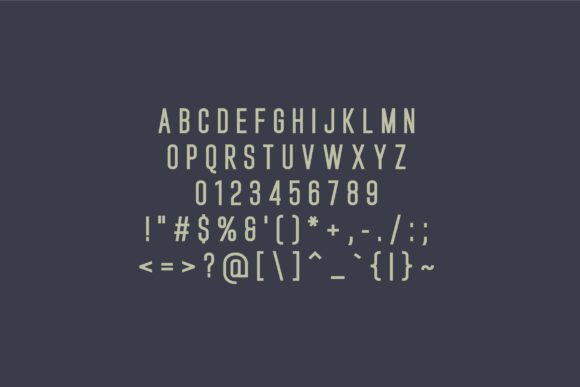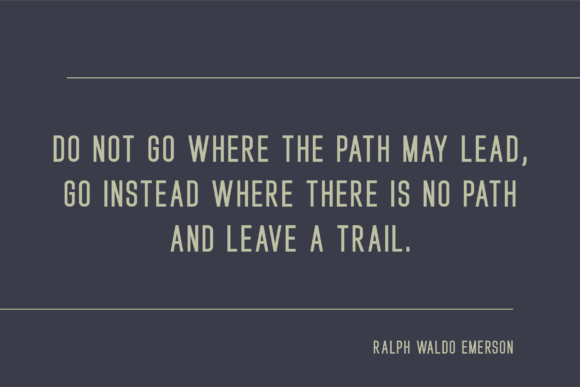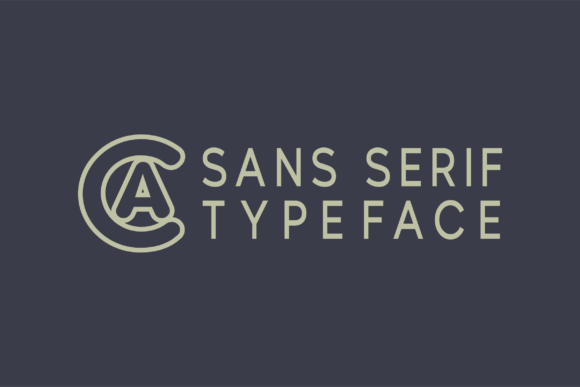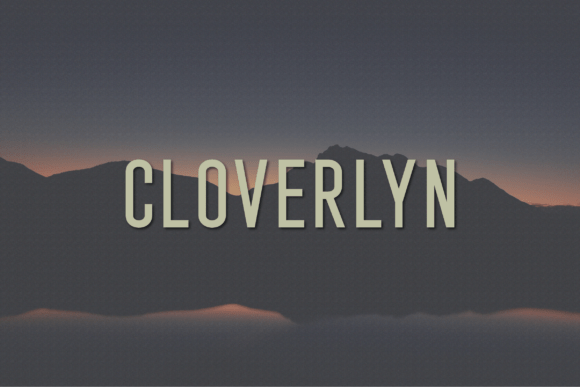
Introducing Cloverlyn Font: Elevate Your Designs with Modern Elegance
In the world of typography, a font can make all the difference in the aesthetic and effectiveness of a design. For designers, crafters, and anyone looking to add a touch of sophistication to their projects, Cloverlyn Font is an exceptional choice. This modern, classy sans serif typeface is not only visually appealing but also incredibly versatile, making it perfect for a wide range of applications.
What is Cloverlyn Font?
Cloverlyn Font is a sans serif typeface that boasts a clean and contemporary look. It features upper characters, numbers 0-9, and a comprehensive range of punctuation and symbols. This extensive character set ensures that you have everything you need to create cohesive and professional-looking designs. Whether you’re working on logos, weddings, invitations, quotes, advertisements, print materials, magazines, or more, Cloverlyn Font is up to the task.
Key Features of Cloverlyn Font
- Modern and Classy Design: Cloverlyn Font’s sleek and contemporary design makes it perfect for projects that require a touch of elegance and sophistication.
- Versatility: Its extensive character set and clear readability make it suitable for a wide range of applications, from digital designs to print materials.
- High Readability: The sans serif design ensures that your text remains clear and readable, even at smaller sizes.
Applications of Cloverlyn Font
The versatility of Cloverlyn Font makes it an excellent choice for various design projects. Here are some of the many ways you can use this fantastic font:
- Logos: Create memorable and elegant logos that stand out.
- Weddings and Invitations: Add a touch of class to your wedding invitations, save-the-date cards, and other ceremony-related materials.
- Quotes and Typography: Use Cloverlyn Font to create stunning typographic quotes that can be used on social media, blogs, or as standalone artworks.
- Advertisements: Enhance your advertising materials with a modern and sophisticated look that captures attention.
- Print and Magazines: Perfect for articles, headlines, and any printed material where clarity and style are paramount.
Why Choose Cloverlyn Font?
With so many fonts available, why should you choose Cloverlyn Font for your projects? The answer lies in its perfect blend of modernity and class. In today’s fast-paced digital age, having a design that stands out is crucial. Cloverlyn Font offers a unique combination of elegance and readability, making it an invaluable asset for designers and crafters looking to elevate their work.
Tips for Using Cloverlyn Font Effectively
To get the most out of Cloverlyn Font, consider the following tips:
- Pair it with Other Fonts: Experiment with pairing Cloverlyn Font with other fonts to create interesting contrasts and hierarchies in your designs.
- Adjust Size and Weight: Play with different sizes and weights of Cloverlyn Font to add depth and emphasis to your text.
- Use it Consistently: For brand consistency, use Cloverlyn Font across all your materials to create a cohesive look.
Cloverlyn Font is more than just a typeface; it’s a design tool that can elevate your projects to new heights. Its modern and classy look, combined with its versatility and readability, makes it an excellent choice for designers and crafters. Whether you’re creating logos, wedding invitations, advertisements, or any other design project, Cloverlyn Font is sure to impress. So why wait? Explore the possibilities with Cloverlyn Font today and discover how it can transform your designs.